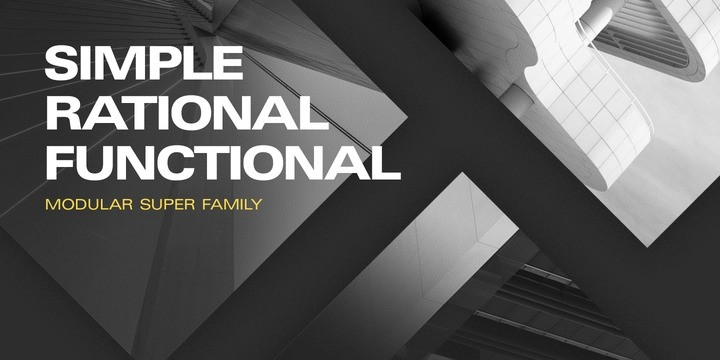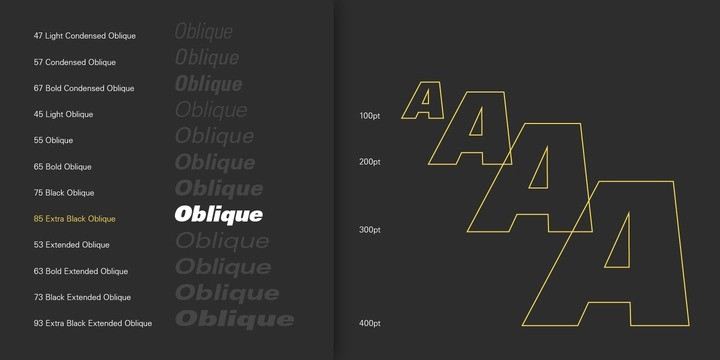
Univers Font
Univers Sans Serif Font Family is one of the greatest typographic achievements of the second half of the 20th century. The family has the advantage of having a variety of weights and styles, which, even when combined, give an impression of steadiness and homogeneity. The clear, objective forms of Univers make this a legible font suitable for almost any typographic need. In 1954 the French type foundry Deberny & Peignot wanted to add a linear sans serif type in several weights to the range of the Lumitype fonts. Adrian Frutiger, the foundry’s art director, suggested refraining from adapting an existing alphabet. He wanted to instead make a new font that would, above all, be suitable for the typesetting of longer texts – quite an exciting challenge for a sans-serif font at that time. Starting with his old sketches from his student days at the School for the Applied Arts in Zurich, he created the Univers type family. In 1957, the family was released by Deberny & Piegnot, and afterwards, it was produced by Linotype. The Deberny & Peignot type library was acquired in 1972 by Haas, and the Haas’sche Schriftgiesserei (Haas Type Foundry) was folded into the D. Stempel AG/Linotype collection in 1985/1989. Adrian Frutiger continues to do design work with Linotype right up to the present day. In 1997, Frutiger and the design staff at Linotype completed a large joint project of completely re-designing and updating the Univers family. The result: Univers Next – available with 59 weights and 4 Linotype Univers Typewriter weights. With its sturdy, clean forms Univers can facilitate an expression of cool elegance and rational competence.
Univers has the uncanny ability to combine well with fonts of many different styles and origins:
Old style fonts such as: Janson Text, Meridien, Sabon, Wilke.
Modern-stressed fonts such as: Linotype Centennial, Walbaum.
Slab serif fonts such as Egyptienne F, Serifa.
Script and brush fonts such as: Brush Script, Mistral, Ruling Script.
Blackletter fonts such as: Duc De Berry, Grace, San Marco.
Even fun fonts such as F2F OCRAlexczyk, Linotype Red Babe, Linotype Seven.”